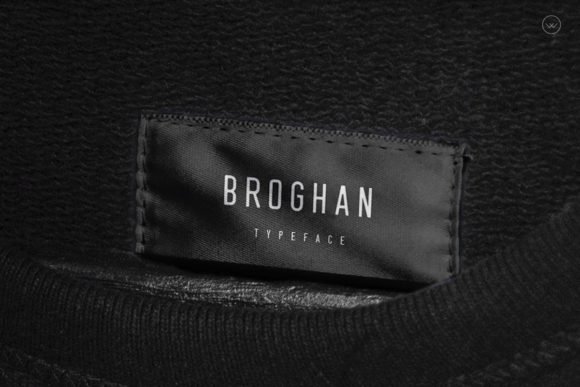
Discover the Perfect Companion for Your Creative Projects
Have you ever stared at a blank canvas, waiting for inspiration to strike? That moment of creative limbo can be the most frustrating – but also the most exciting. It’s when the possibilities seem endless, and the right tool can make all the difference. For designers, finding the perfect font can be the key to unlocking a project’s true potential.
Enter Broghan Font, a simple yet effective sans serif font that’s designed to elevate your creative ideas. With its natural, effortless feel, Broghan Font is the perfect companion for a wide range of projects, from branding and marketing materials to digital interfaces and publications. Its versatility and clean design make it a valuable asset for any designer looking to add a touch of sophistication to their work.
Broghan Font Key Features
- Font Family: Broghan is a modern sans-serif font, ideal for digital interfaces and publications.
- Character Set: Includes a wide range of characters, including Latin, Greek, and Cyrillic scripts, making it suitable for multilingual designs.
- Size: The font family comes in multiple weights, ranging from Light (100) to Extra Bold (800), allowing designers to achieve the desired visual impact.
- Resolution: Optimized for high-resolution displays, including Retina and 4K screens, ensuring crisp and clear typography at various zoom levels.
- Unique Characteristics: Broghan features a distinctive geometric shape and clean lines, making it perfect for modern designs, minimalist interfaces, and corporate branding.
Broghan Font Review
As a designer, I’ve had the chance to work with a variety of fonts, and Broghan is definitely an interesting one. Here are my thoughts:
- Unique style: Broghan’s got a distinctive flair that sets it apart from more common fonts.
- Legibility: While it’s not the most readable font out there, it’s still clear and easy to decipher at larger sizes.
- Pairing potential: I think Broghan could be a great choice for headings or titles, especially when paired with a simpler font for body text.
- At smaller sizes, Broghan can become quite difficult to read.
- The font may not be the best choice for long blocks of text, as it can feel fatiguing to the eyes.
- It may not be the most versatile font for various design applications.
Overall, I think Broghan is a solid choice for designers looking to add some visual interest to their projects. While it’s not perfect, it’s definitely worth considering for specific applications. Just be mindful of its limitations, and use it wisely!
Practical Application Guide for Broghan Font
Getting the Most Out of Broghan Font
To get the most out of the Broghan font, use it in combination with bold or italic styles to create visual interest. You can also use it to create headings or titles to draw attention to important information.
The Broghan font is commonly used for creative projects, such as invitations, posters, and social media graphics. It’s also used in branding and marketing materials, such as logos and business cards.
Alternatives to Broghan Font
Great Vibes is a beautiful, elegant script font perfect for creating a sense of sophistication and luxury. It’s ideal for use in high-end branding, wedding invitations, and special occasions. Great Vibes is a more refined and polished alternative to Broghan Font, with a more classic and timeless feel.
Carolyna Pro is a modern, elegant script font designed for use in a variety of applications, from fashion and beauty to luxury and lifestyle branding. It’s a great choice for designers looking to create a sense of glamour and sophistication. Carolyna Pro is a more modern and edgy alternative to Broghan Font, with a more contemporary feel.
Playfair Display is a luxurious, high-end serif font perfect for use in premium branding, advertising, and editorial design. It’s a great choice for designers looking to create a sense of elegance and sophistication. Playfair Display is a more formal and traditional alternative to Broghan Font, with a more classic and refined feel.
Alex Brush is a beautiful, elegant script font designed for use in a variety of applications, from fashion and beauty to luxury and lifestyle branding. It’s a great choice for designers looking to create a sense of sophistication and refinement. Alex Brush is a more delicate and feminine alternative to Broghan Font, with a more whimsical and romantic feel.